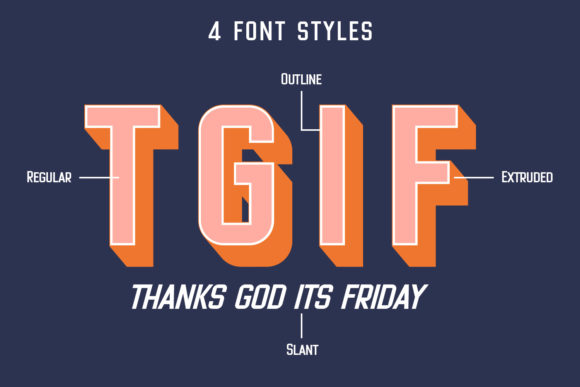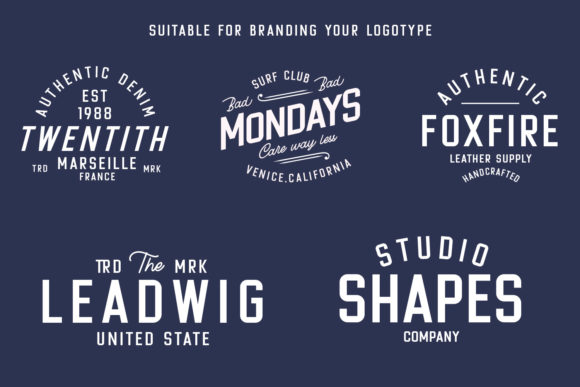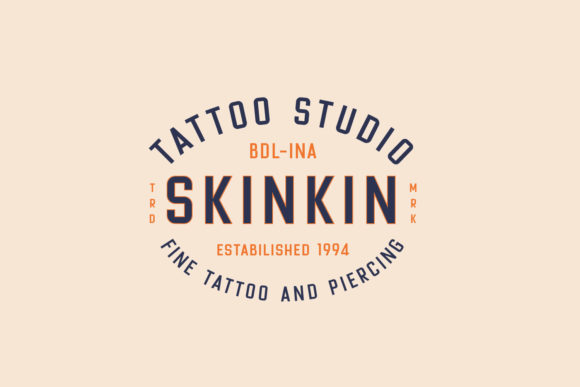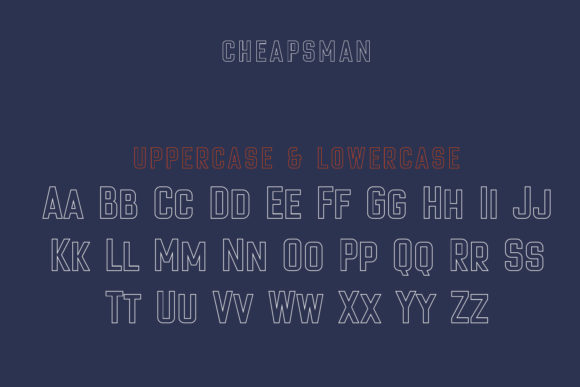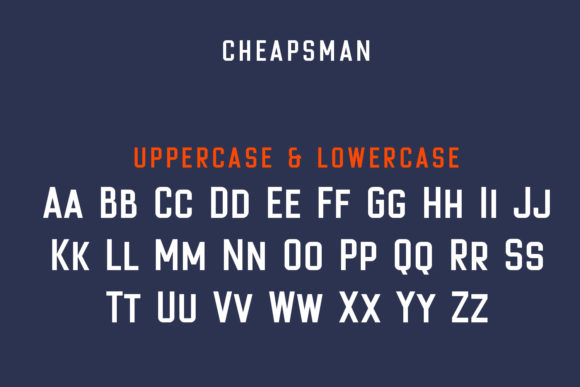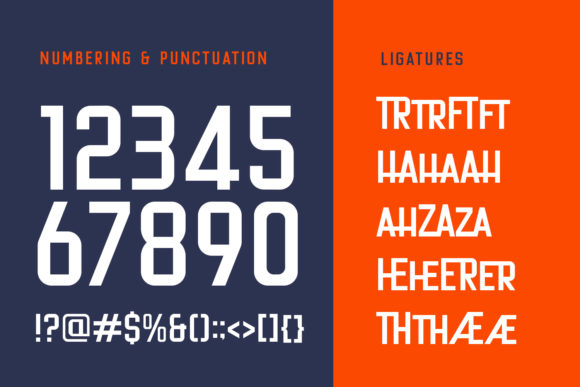
Introducing Cheapsman Font: The Bold and Authentic Display Font You Need
Are you tired of using the same old fonts for your creative projects? Look no further than Cheapsman Font, a bold and authentic display font that’s sure to make your ideas stand out. In this article, we’ll dive into the features and benefits of Cheapsman Font, and explore how it can elevate your designs and craft projects.
What is Cheapsman Font?
Cheapsman Font is a display font designed to make a statement. Its bold and authentic style is perfect for headlines, titles, and other creative projects where you want to grab attention. The font is carefully crafted to provide a unique and distinctive look that’s sure to set you apart from the crowd.
Key Features of Cheapsman Font
- Bold and Authentic Style: Cheapsman Font has a bold and authentic style that’s perfect for making a statement.
- Display Font: This font is specifically designed for display purposes, making it ideal for headlines, titles, and other creative projects.
- Unique and Distinctive Look: Cheapsman Font has a unique and distinctive look that’s sure to set you apart from the crowd.
- Easy to Read: Despite its bold style, Cheapsman Font is easy to read, making it perfect for use in a variety of creative projects.
Benefits of Using Cheapsman Font
So why should you choose Cheapsman Font for your creative projects? Here are just a few benefits of using this amazing font:
- Adds Visual Interest: Cheapsman Font adds visual interest to your designs and craft projects, making them more engaging and attention-grabbing.
- Enhances Creativity: With its bold and authentic style, Cheapsman Font can help enhance your creativity and inspire new ideas.
- Versatile: Cheapsman Font can be used in a variety of creative projects, from digital designs to craft projects.
- Easy to Use: Cheapsman Font is easy to use and can be easily integrated into your design or craft project.
How to Use Cheapsman Font
Using Cheapsman Font is easy. Here are a few tips to get you started:
- Use it for Headlines and Titles: Cheapsman Font is perfect for use in headlines and titles, where you want to grab attention and make a statement.
- Experiment with Different Sizes: Try using Cheapsman Font in different sizes to add visual interest to your designs and craft projects.
- Pair it with Other Fonts: Cheapsman Font can be paired with other fonts to create a unique and distinctive look.
Who Can Benefit from Cheapsman Font?
Cheapsman Font is perfect for anyone who wants to add a bold and authentic touch to their creative projects. Here are a few examples of who can benefit from this amazing font:
- Graphic Designers: Graphic designers can use Cheapsman Font to create visually appealing designs that grab attention.
- Crafters: Crafters can use Cheapsman Font to add a personal touch to their craft projects, such as scrapbooking, card making, and more.
- Digital Artists: Digital artists can use Cheapsman Font to add a bold and authentic touch to their digital art.
| Font Name | Cheapsman Font |
| Author | TempCraft |
In conclusion, Cheapsman Font is a bold and authentic display font that’s perfect for making a statement. With its unique and distinctive look, ease of use, and versatility, Cheapsman Font is a must-have for any designer or crafter looking to add a touch of personality to their creative projects. So why wait? Add Cheapsman Font to your creative toolbox today and start creating stunning designs and craft projects that stand out!